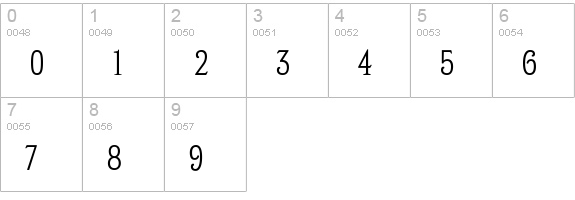
MeyerTwo-Condensed Font Details
MeyerTwo-Condensed is a distinctive, condensed-width variant in the MeyerTwo typeface family \xE2\x80\x94 well suited to design and typography projects.
MeyerTwo-Condensed font is a modern and sleek typeface that exudes sophistication and elegance. Its condensed design makes it perfect for creating bold headlines and eye-catching titles. With its clean lines and sharp edges, MeyerTwo-Condensed font is sure to make a statement in any design project. This versatile font is ideal for a wide range of applications, from branding and advertising to web design and print materials. Whether you're looking to add a touch of class to your next project or want to make a bold statement, MeyerTwo-Condensed font is the perfect choice. Best of all, MeyerTwo-Condensed font is available for free download at FontsMarket.com. This means you can start using this stylish and modern font in your projects right away, without any cost. Don't miss out on this opportunity to enhance your designs with the striking MeyerTwo-Condensed font. Download it now and take your designs to the next level.